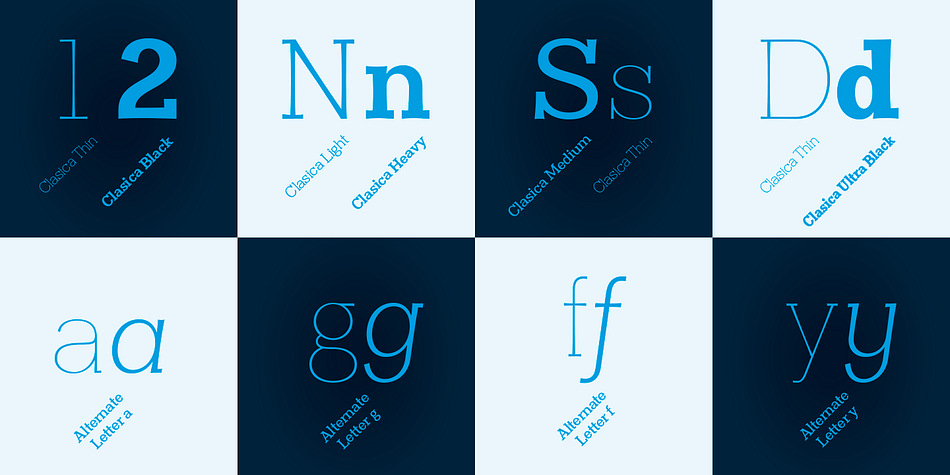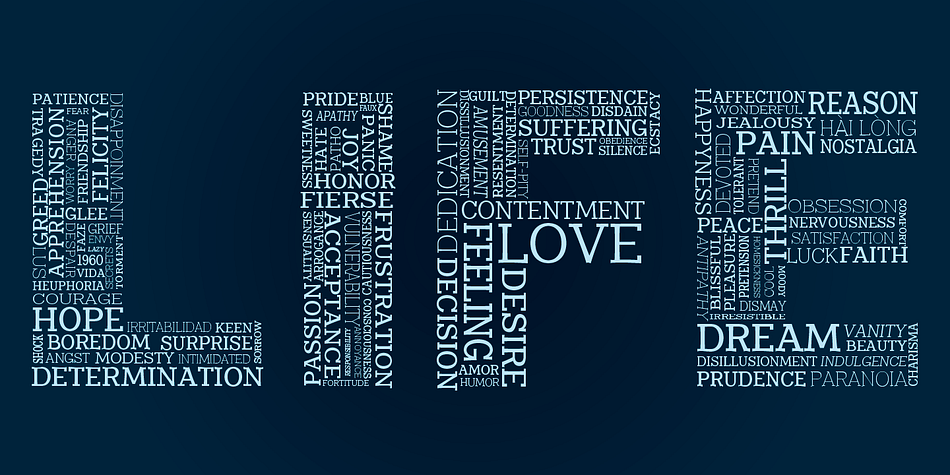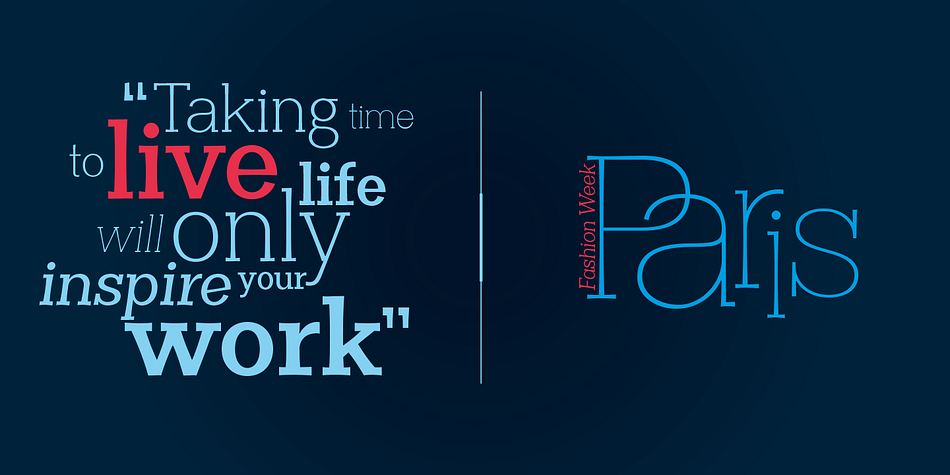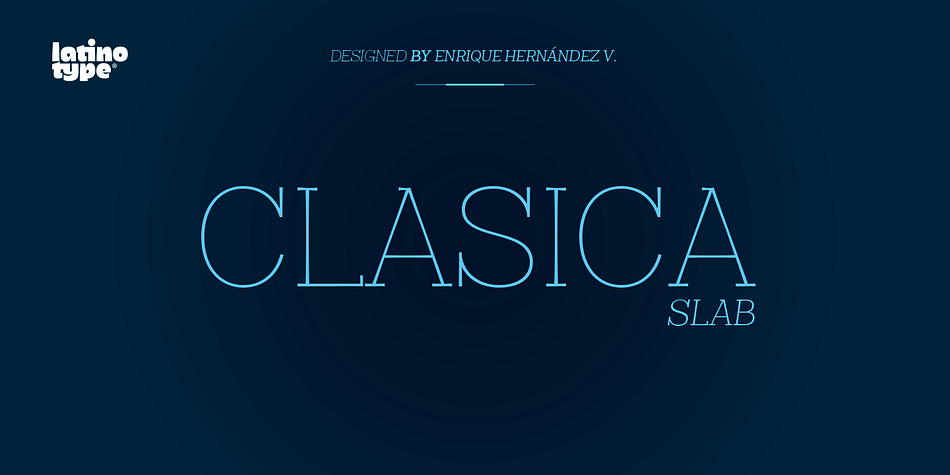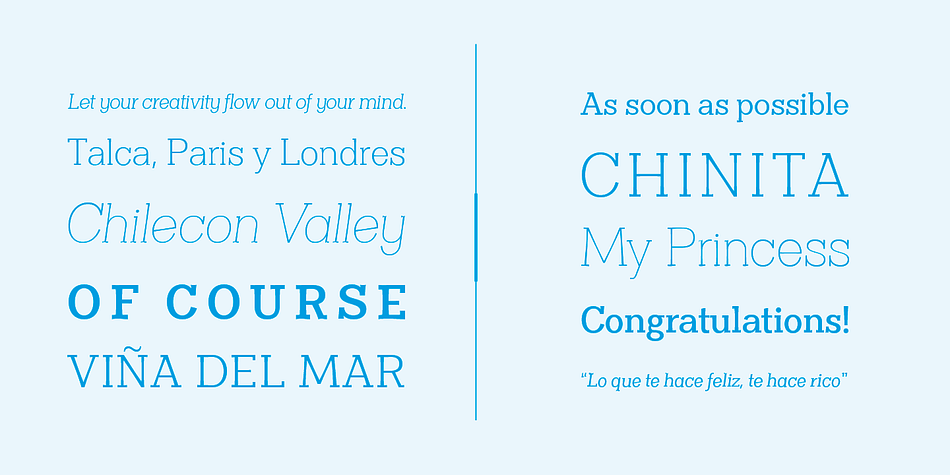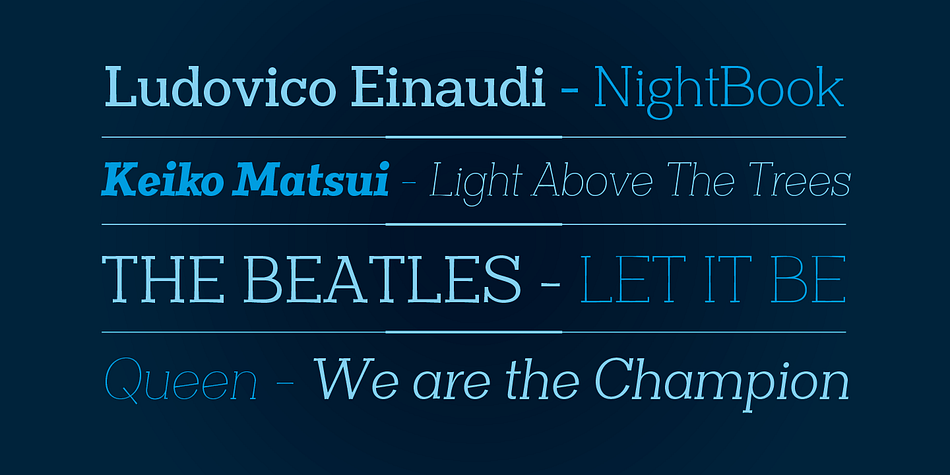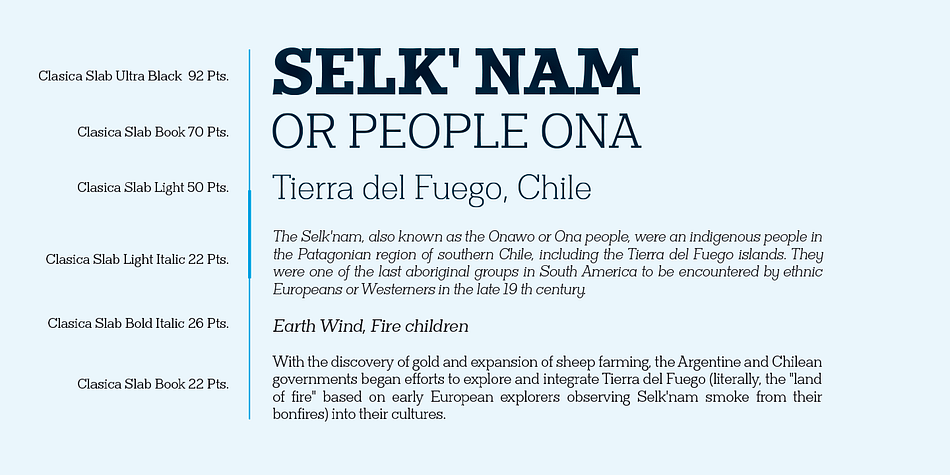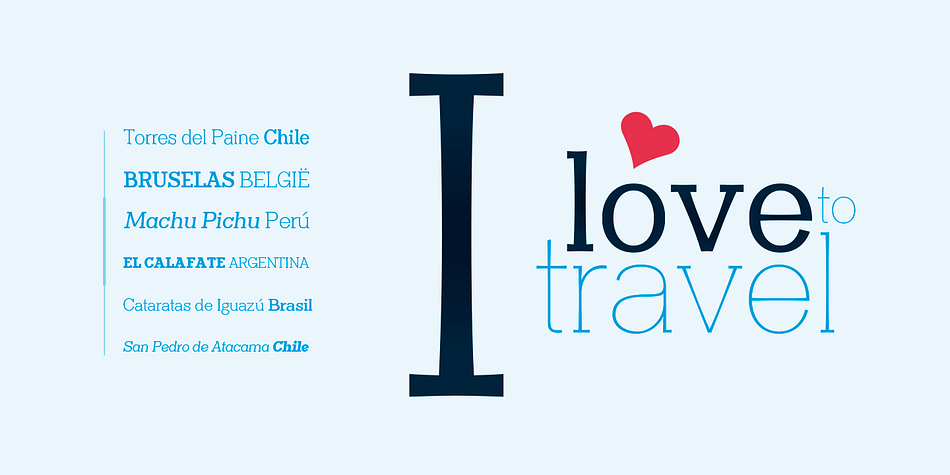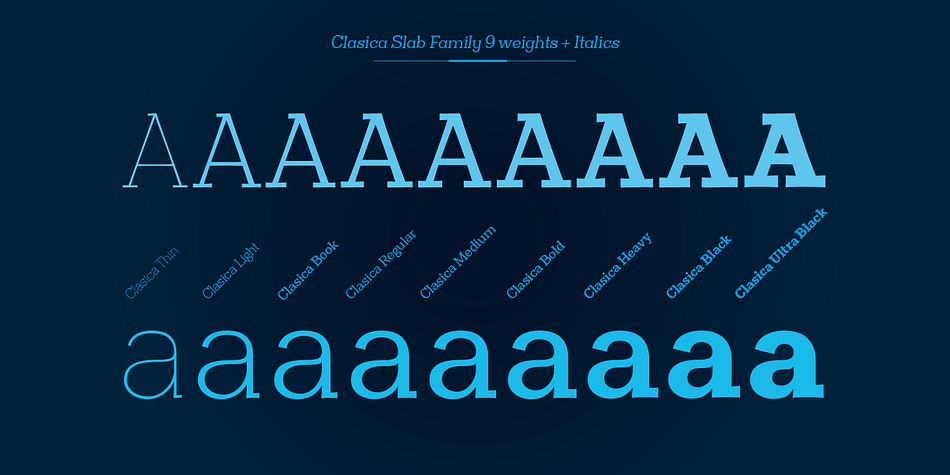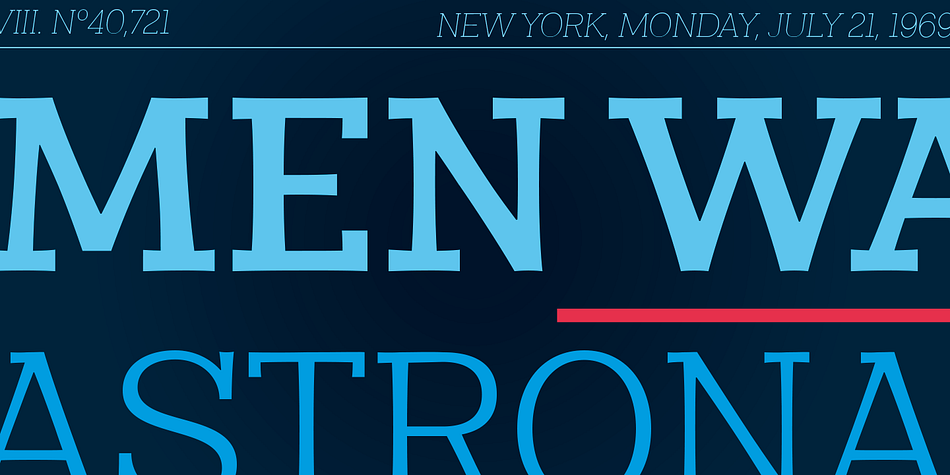
Clasica Slab is a slab serif font family. This typeface has eighteen styles and was published by Latinotype.
The font family “Clasica” is ideal to cover every design need. Excellent for titles, paragraphs, magazines, books, editorials and logos.
The particularity and identity of this font is found in the thinness of its vertical strokes and symmetrical serif.
Inspired by the “Optima” font but with a serif that gives a different and new feel. “Clasica” counts with glyphs for the letters: a, e, f, g, r and y. This font family comes with 9 different weights with their respective italics.